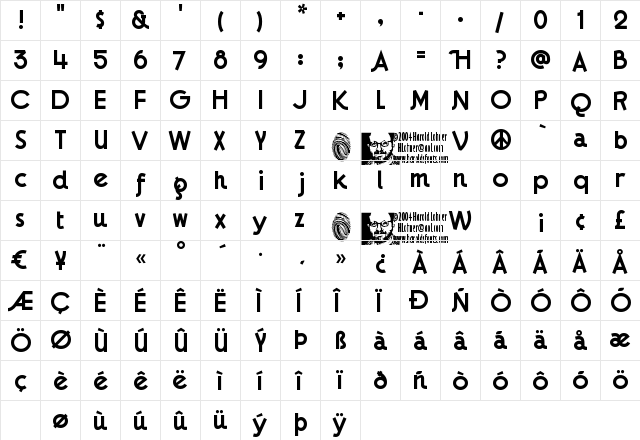
Gaumont Regular
Design Context for Gaumont Typeface
Gaumont takes a measured approach to typography — its balanced proportions and neutral character make it a reliable workhorse for both digital and print work.